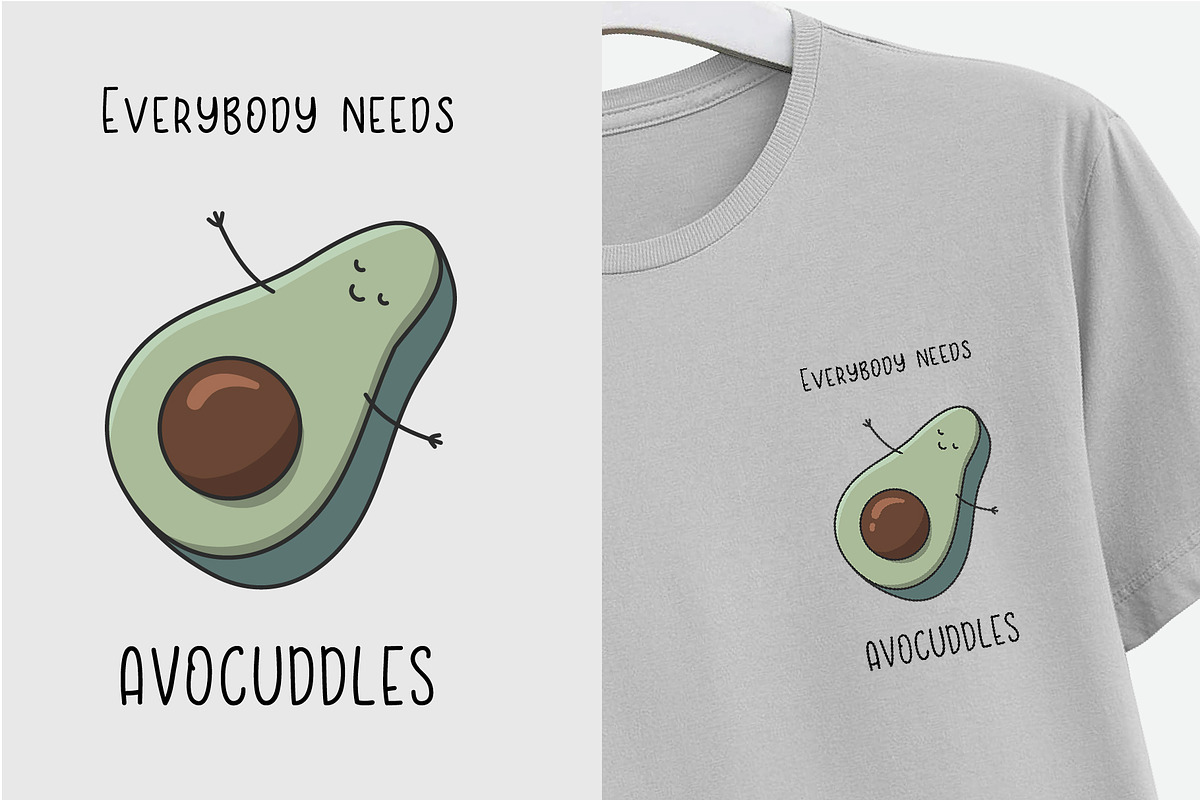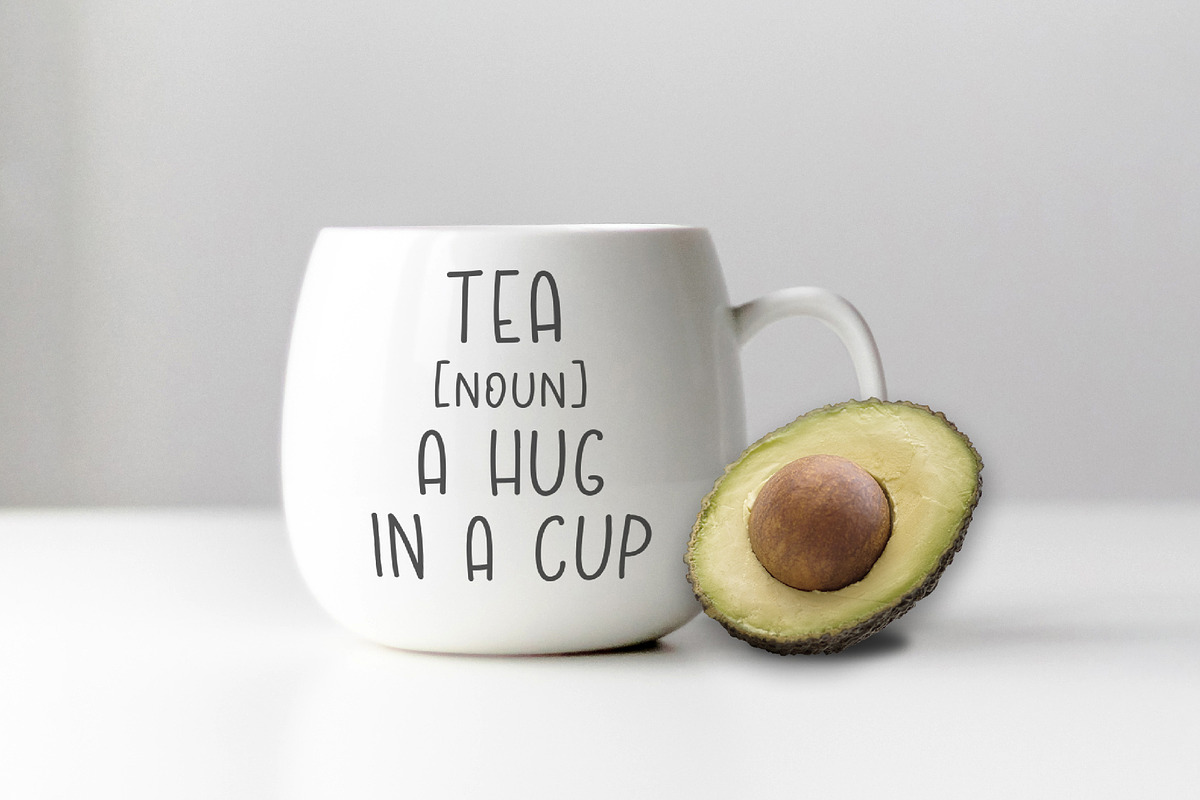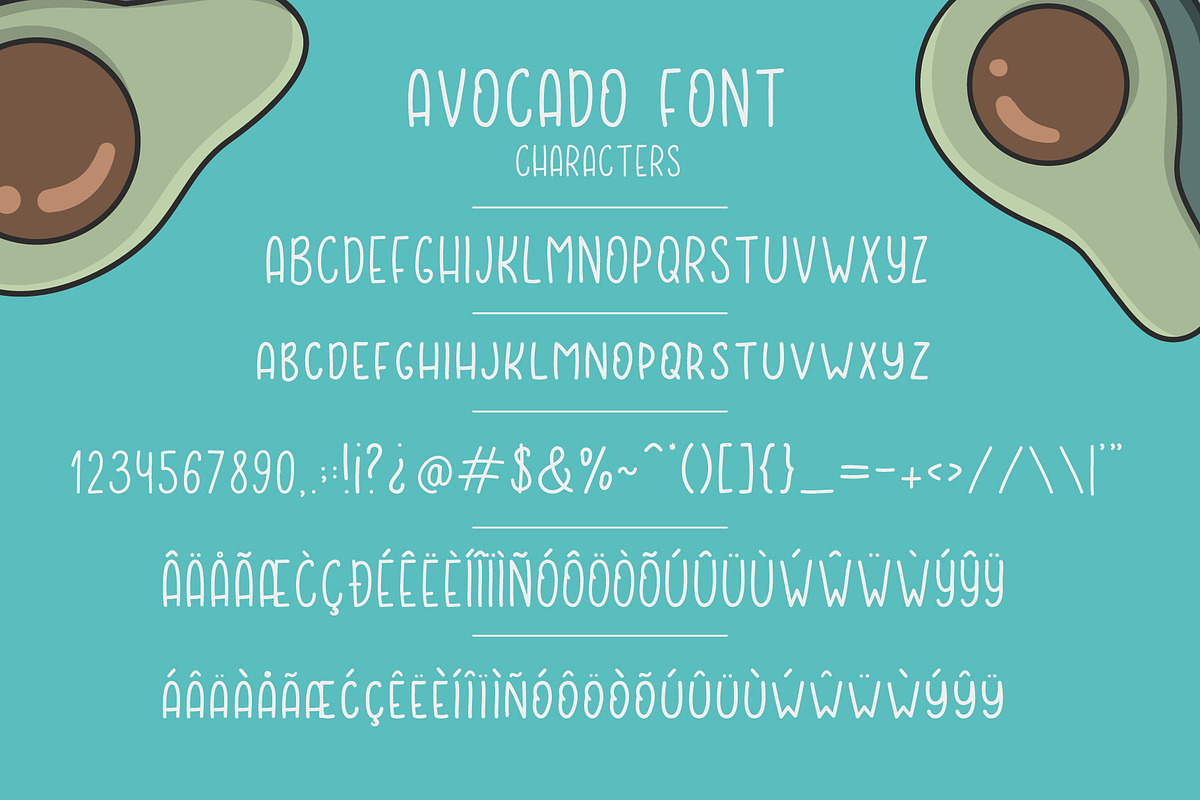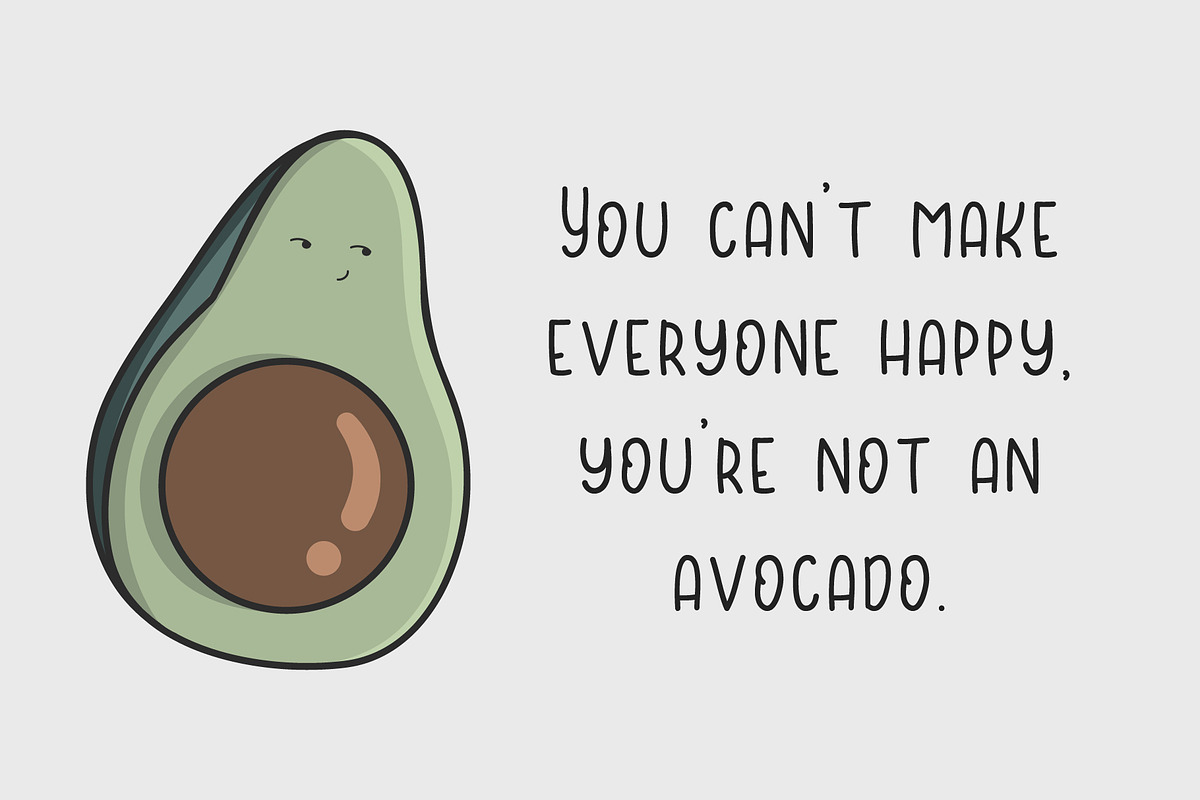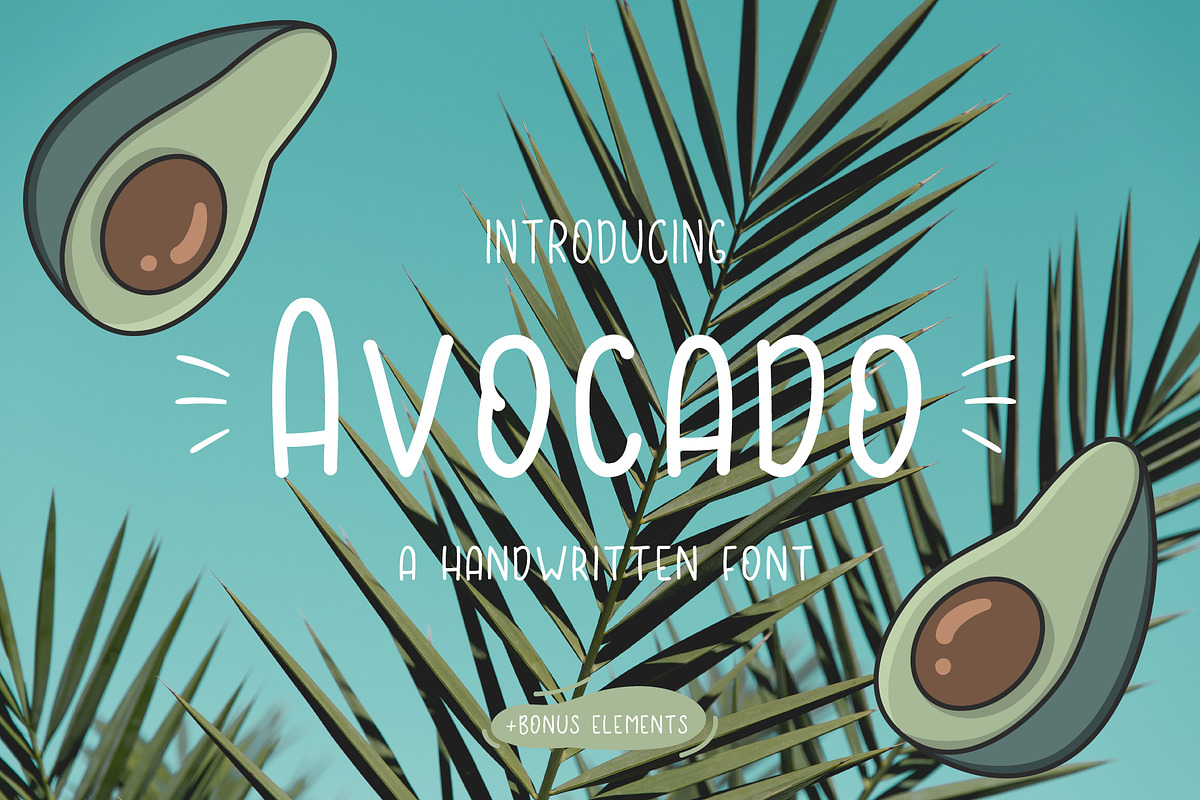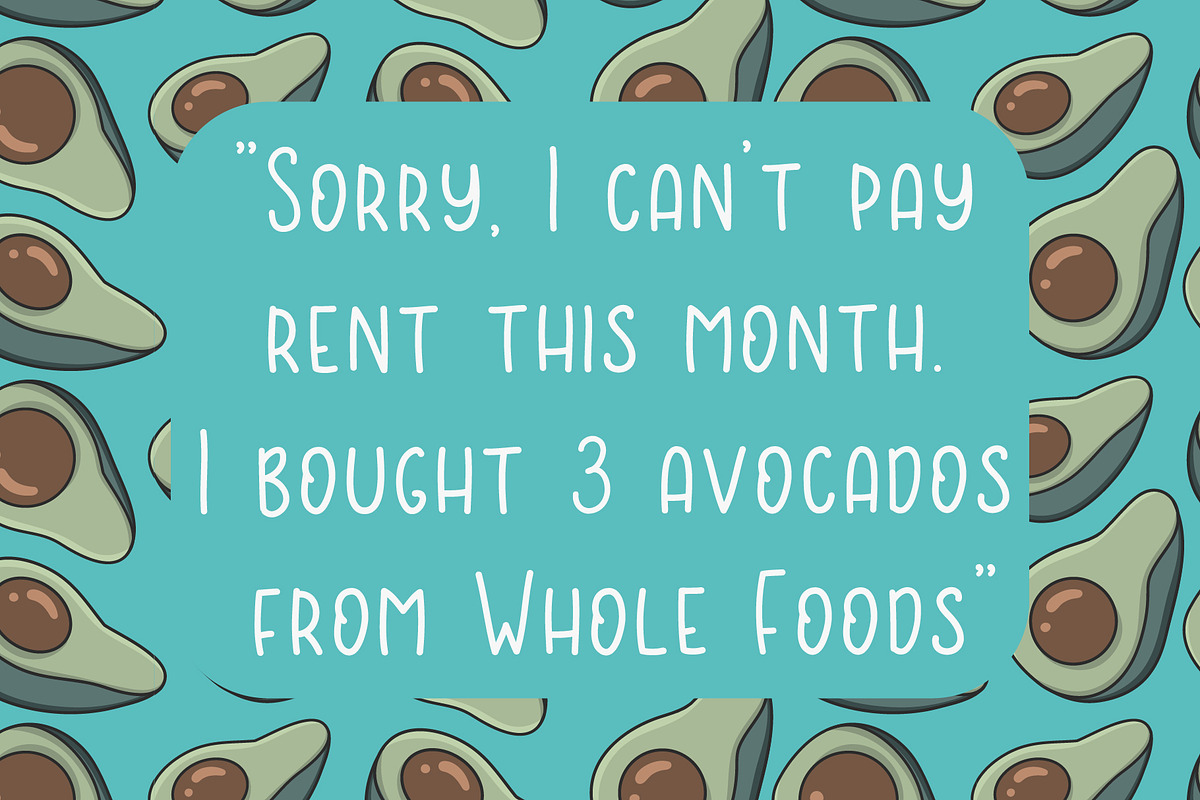
Avocado font
Hi guys! I am pleased to introduce my new font - Avocado! It's a simple handwritten font with clean lines. This font is well suited for titles, quotes, phrases. Also it would look great in logos, labels, heading and posters. And this font would looking good on t-shirts.